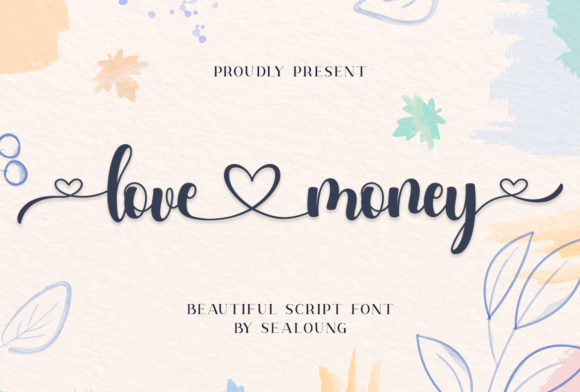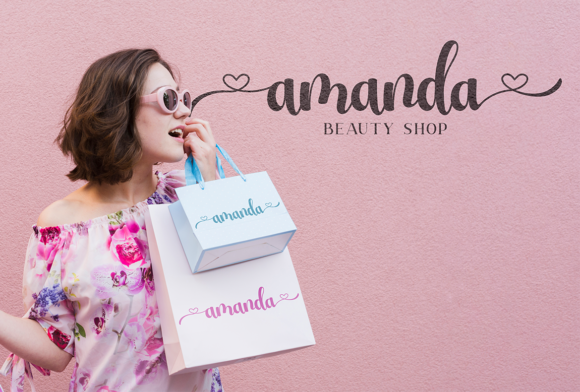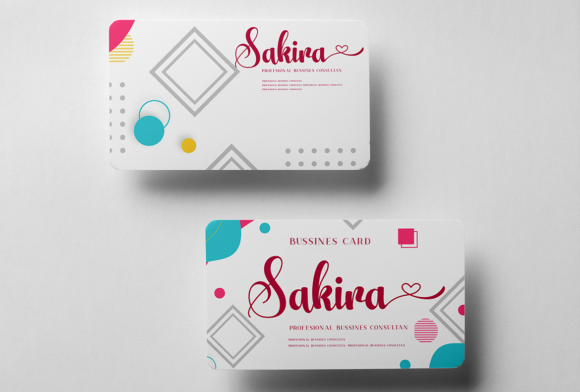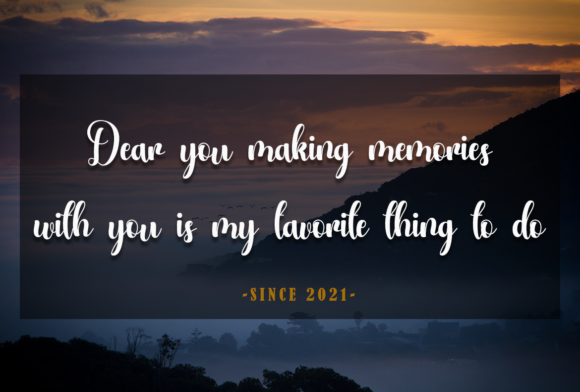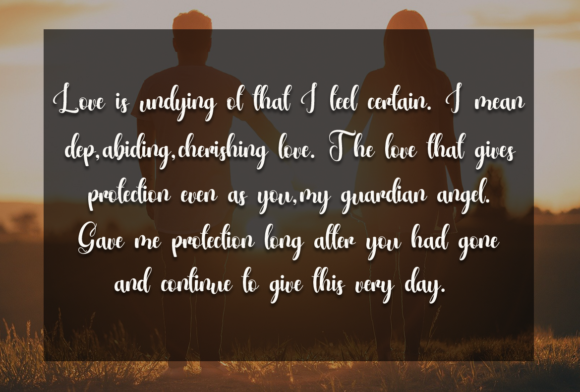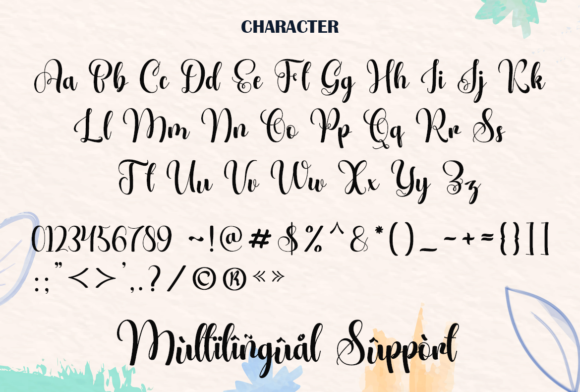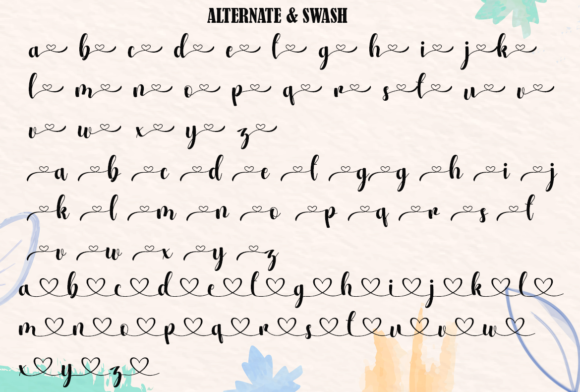
Love Money Font
Love money is a visually romantic script font with heart ornaments that adds to this lovely font. It looks stunning on wedding invitations, valentine’s cards, quotes, greeting cards, logos, business cards, and every other design which needs a handwritten touch. It features a varying baseline, smooth lines, gorgeous glyphs and stunning alternates.